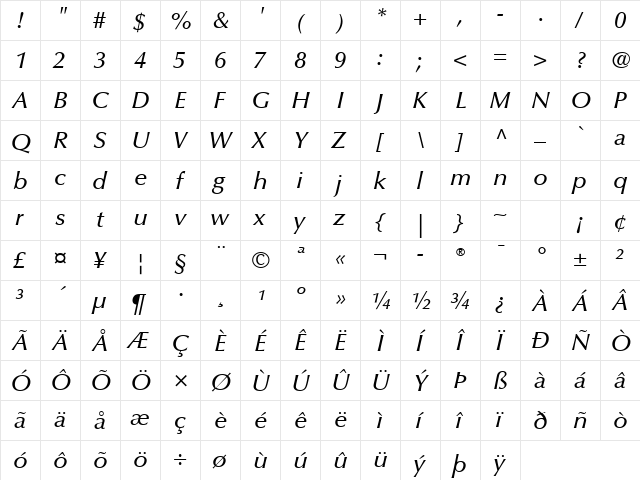
Optima LT Std Medium Medium Italic Font Preview
| Designer | Hermann Zapf |
Design Context for Optima LT Std Medium Typeface
Optima LT Std Medium offers clean, dependable letterforms without strong stylistic allegiance, making it a practical choice for designers who need flexibility. The slanted form adds forward momentum and visual energy. The delicate stroke weight brings airiness and refinement to layouts.
Pro Tip: Try Optima LT Std Medium for annotation and caption copy alongside an upright companion — the contrast in angle creates a dynamic but ordered typographic system.